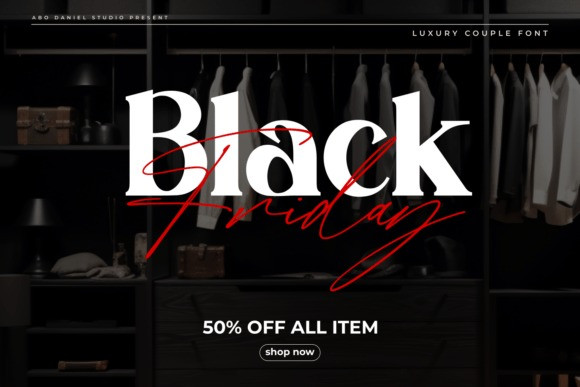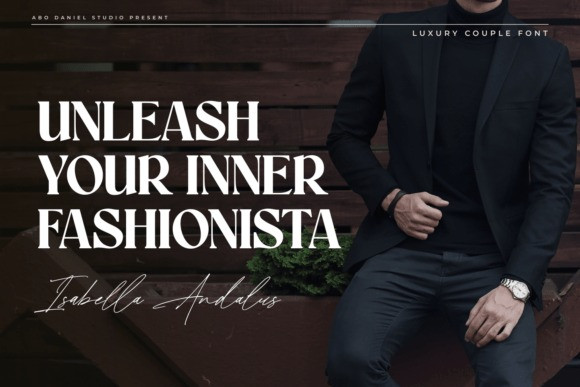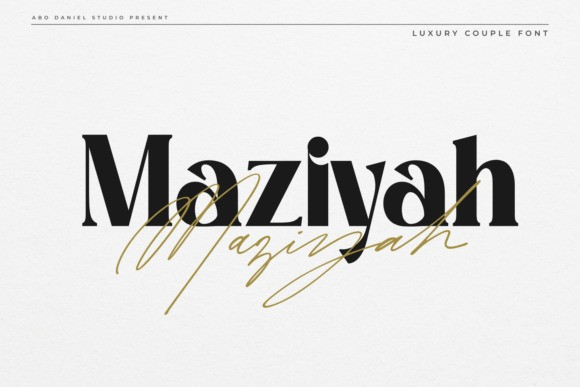
Maziyah Font Duo
Maziyah Font Duo is the definitive ‘Luxury Couple Font’ duo, masterfully combining a sophisticated, high-contrast serif with a fluid, authentic signature script to capture the essence of refined elegance and personal intimacy.
The bold, classical serif boasts dramatic thick-thin strokes and sharp terminals for an authoritative, high-fashion presence, while the accompanying golden script adds a delicate, handwritten warmth with its natural flow and ligature-rich design.
This pairing is non-negotiable for high-end wedding invitations, luxury fashion branding, magazine layouts, custom product packaging, and any project demanding a premium, timelessly chic aesthetic with an unforgettable personal touch.